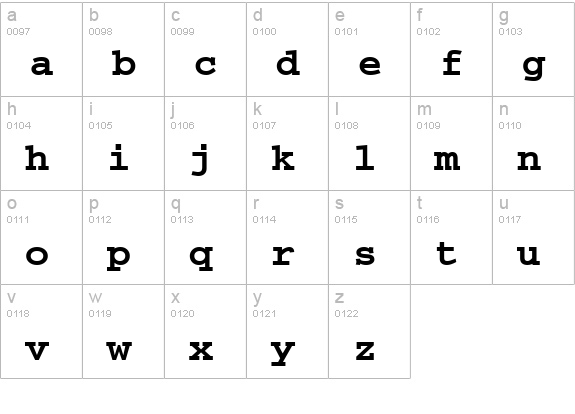
CourierPS Bold Font Details
CourierPS Bold is a strong, high-contrast variant in the CourierPS typeface family \xE2\x80\x94 well suited to headlines, attention-grabbing titles, and strong calls-to-action.
CourierPS Bold is a versatile and bold font that exudes professionalism and clarity. With its clean lines and sharp edges, this font is perfect for conveying a sense of authority and reliability in various design projects. Whether used for print materials, digital content, or branding, CourierPS Bold commands attention and makes a statement. The best part is that CourierPS Bold is available for free download at FontsMarket.com. This means you can easily access this high-quality font without any cost, making it a valuable asset for designers, creatives, and anyone looking to elevate their projects with a touch of sophistication. Don't miss out on the opportunity to enhance your designs with the timeless appeal of CourierPS Bold - download it for free today at FontsMarket.com!